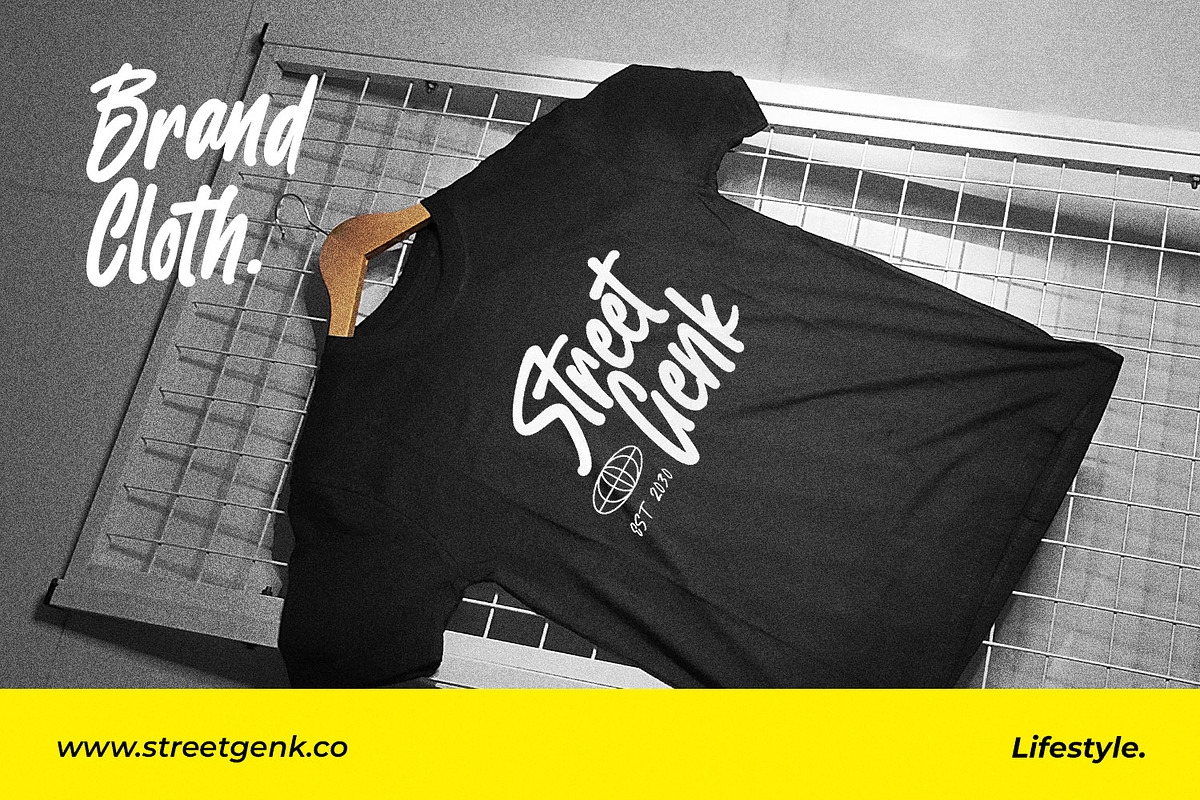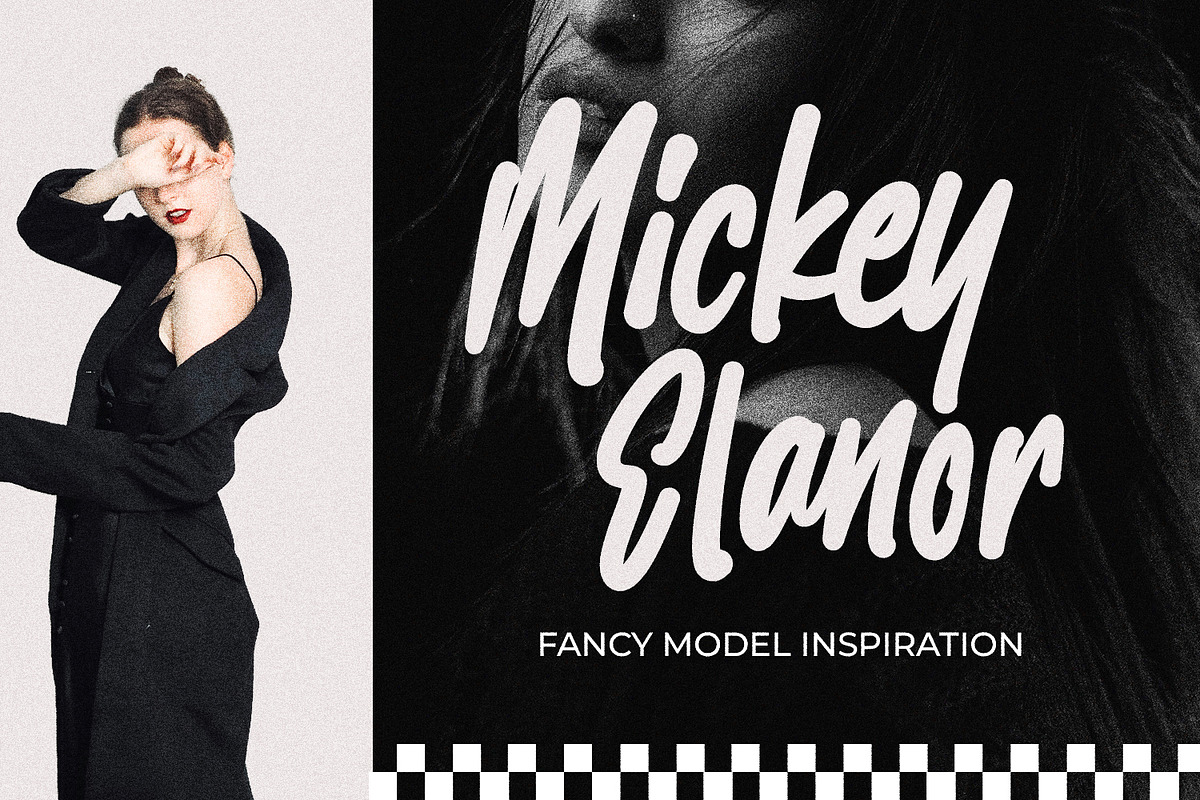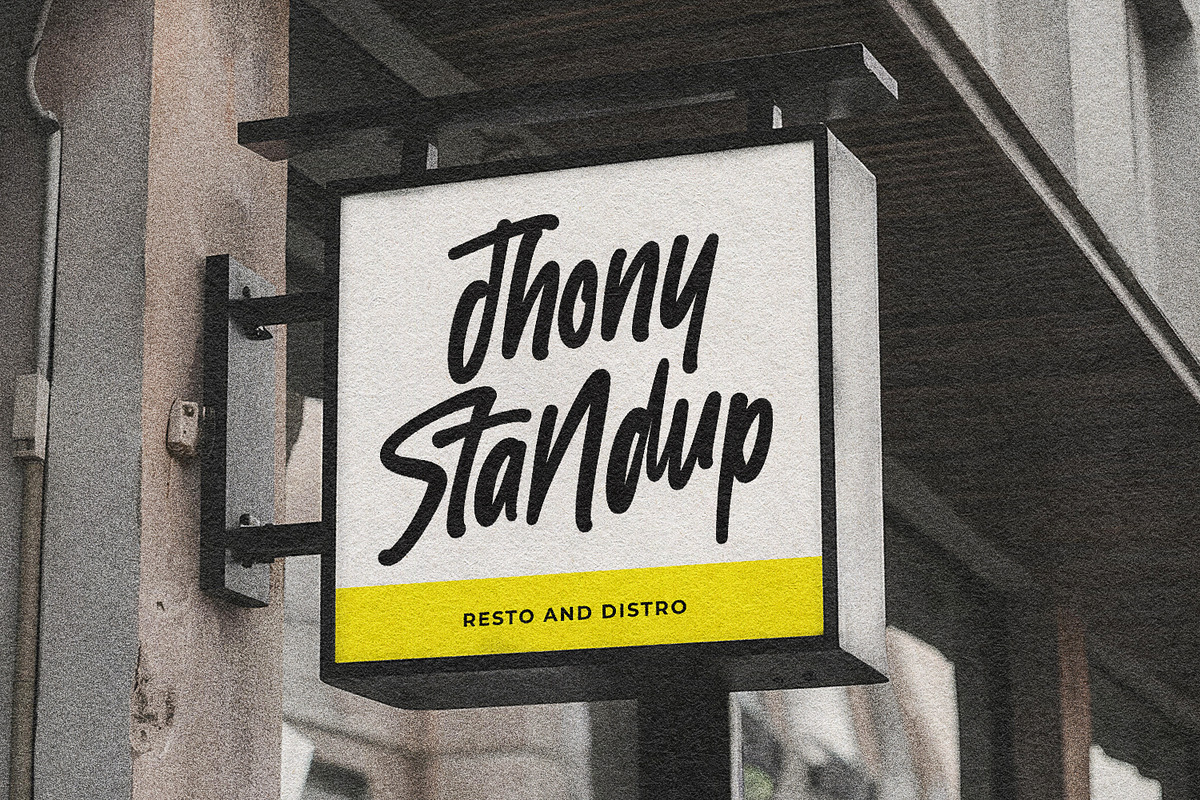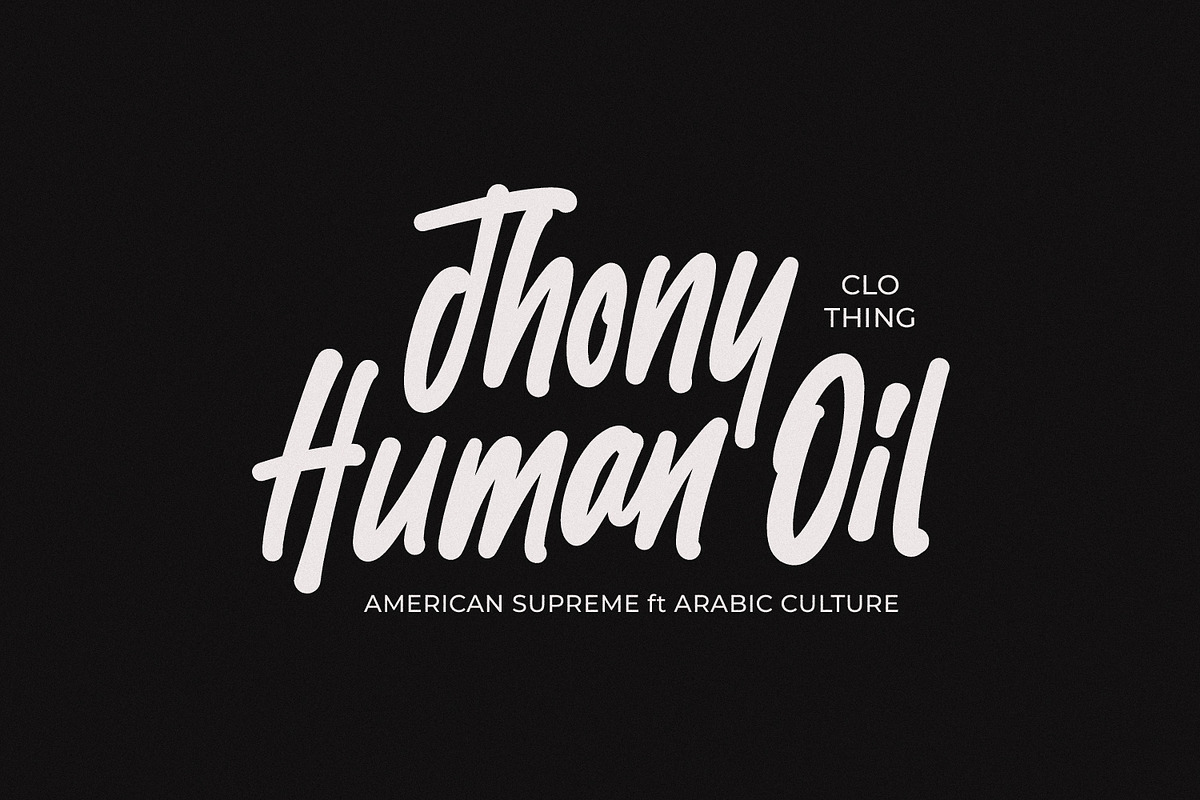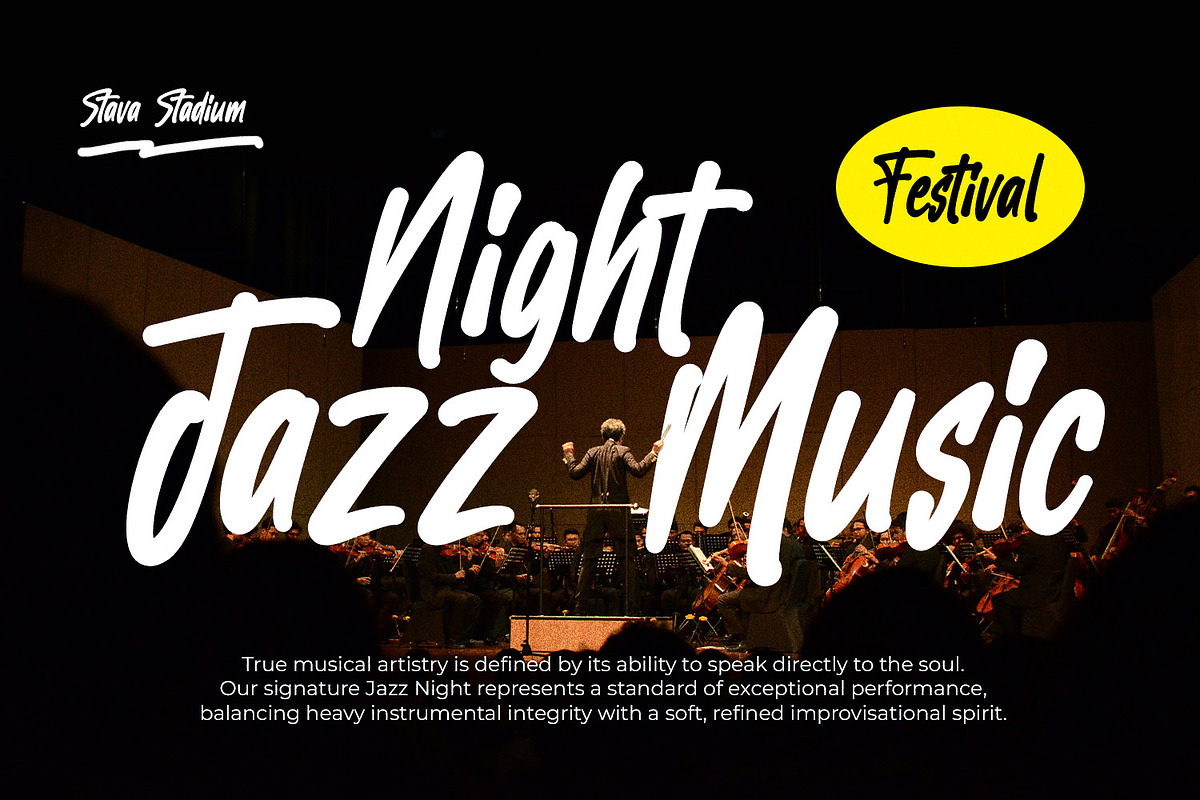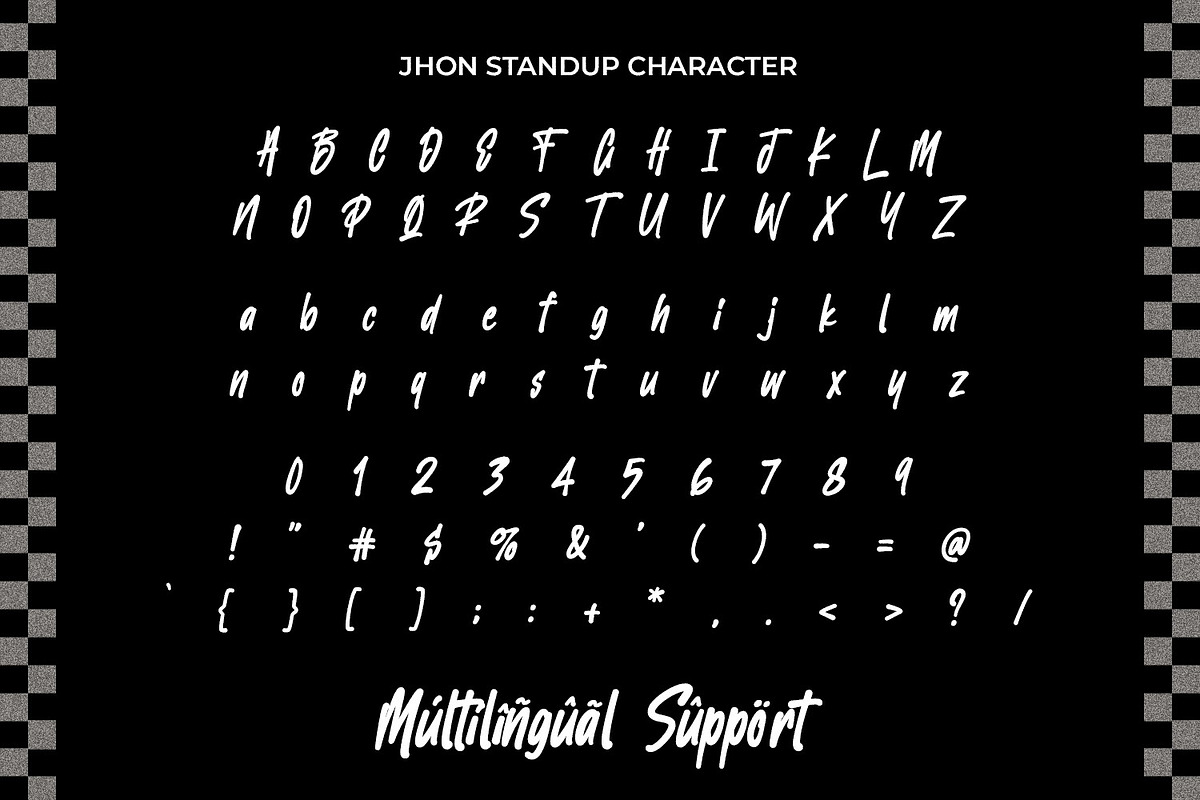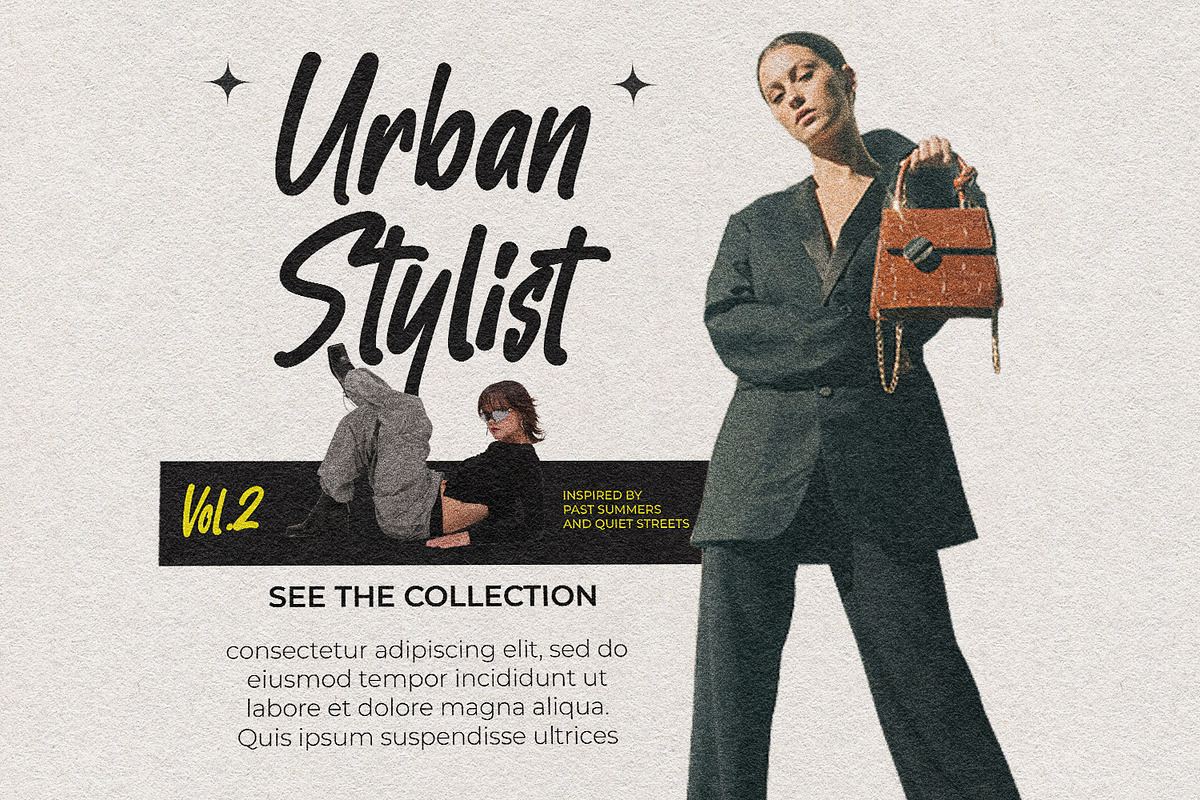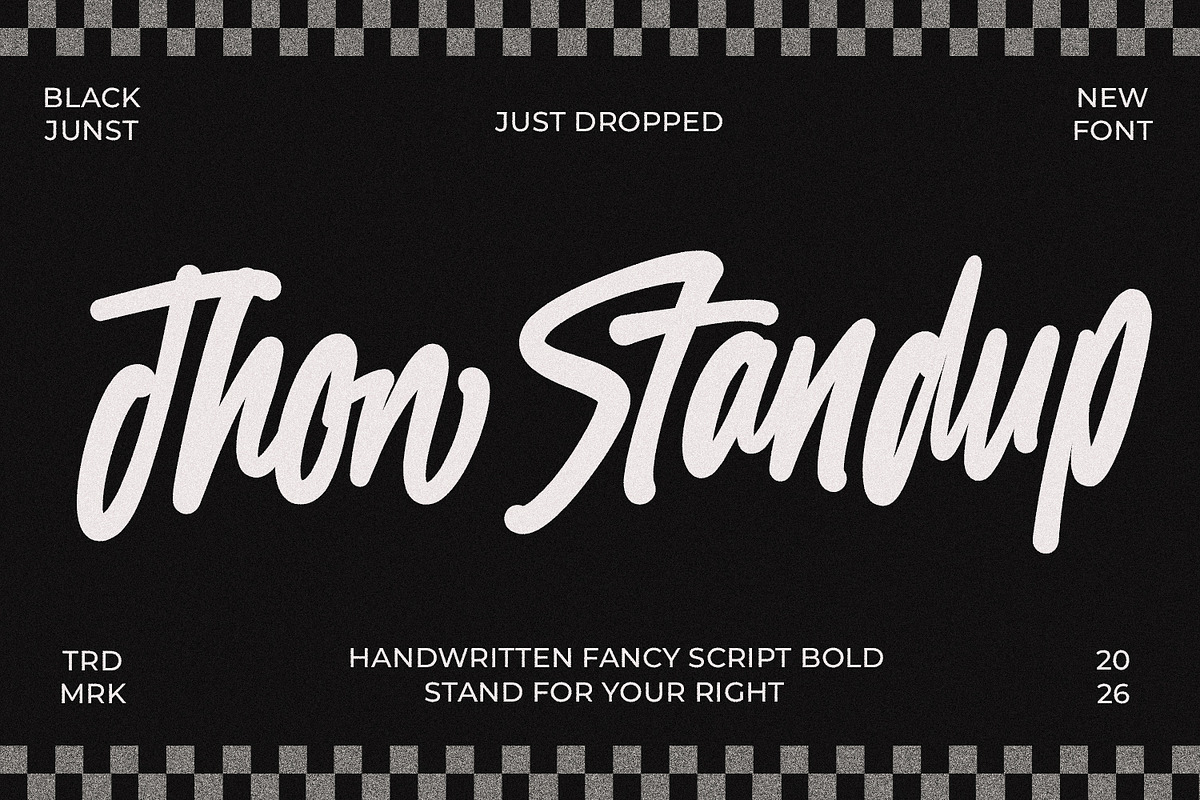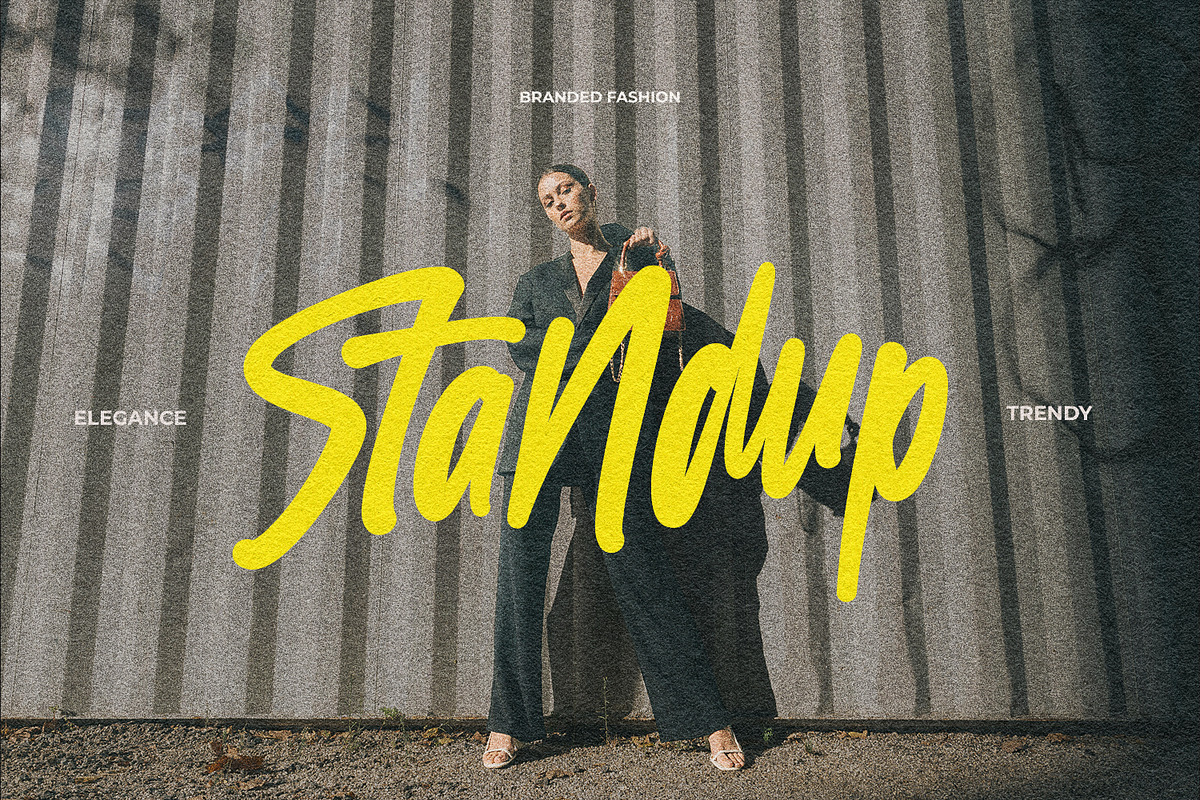
Jhon Standup - Streetwear Display
Jhon Standup is a bold handwritten script font crafted to bring energy, confidence, and personality into every design project. Featuring smooth brush-inspired strokes, natural flowing connections, and strong character shapes, this font is perfect for branding, logo design, packaging, apparel, social media content, posters, advertising, and modern lifestyle products.
Jhon Standup offers uppercase and lowercase letters, alternates, ligatures, and multilingual support, making it versatile for a wide range of design projects. Whether you’re working on a bold sports logo, a trendy clothing label, or expressive typography for packaging, this font brings a cool modern edge with an urban flair.
Use Jhon Standup to create powerful visual identities, handwritten signatures, or energetic typographic compositions that stand out. It’s ideal for creative professionals who want their designs to look stylish, confident, and timeless. Available in OTF, TTF, and Webfont formats.
Bring energy and attitude to your next project with Jhon Standup — a handwritten script that speaks boldness and creativity.